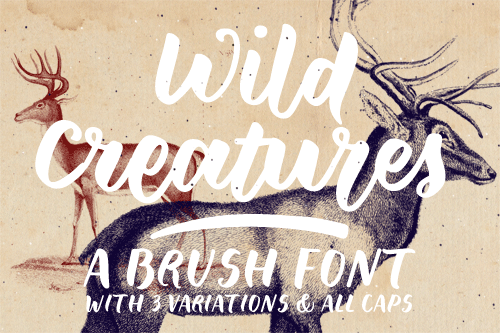
Preview and download Wild Creatures Font. Created by Ana in Script Brush styles with Demo license.
Wild Creatures is a bold brush font, in three variations, with: - A-Z, a-z, 0-9, accents, punctuation and symbols - Ligatures - All Caps alternate set - Bonus Swashes Try it out for free (for private use) with this sample version! For the full commercial version, please visit one of these links: https://www.anasfonts.com/ https://creativemarket.com/justlikethistrain?u=justlikethistrain http://www.revolge.com/shop/anas-fonts/ https://thehungryjpeg.com/anas-fonts/ https://www.fontspring.com/foundry/anas-fonts https://buyafont.com/designer/anas-fonts |